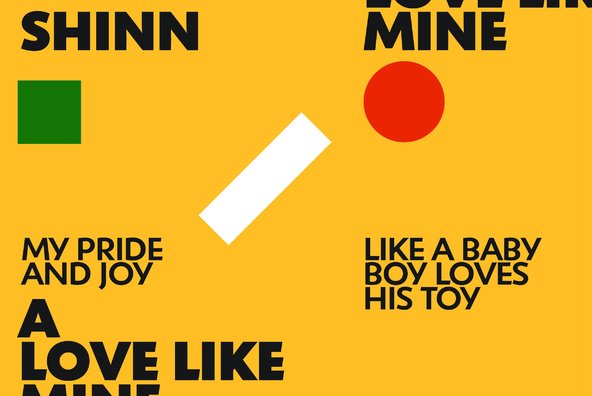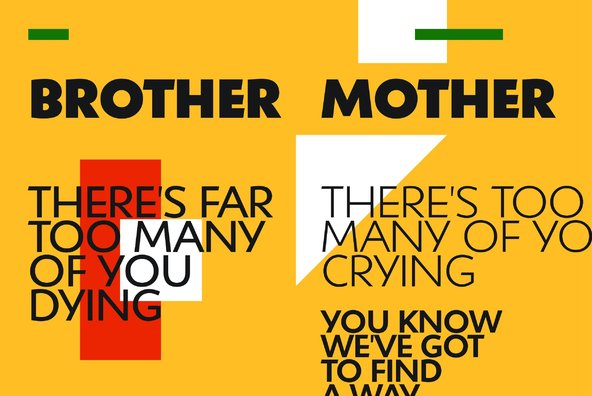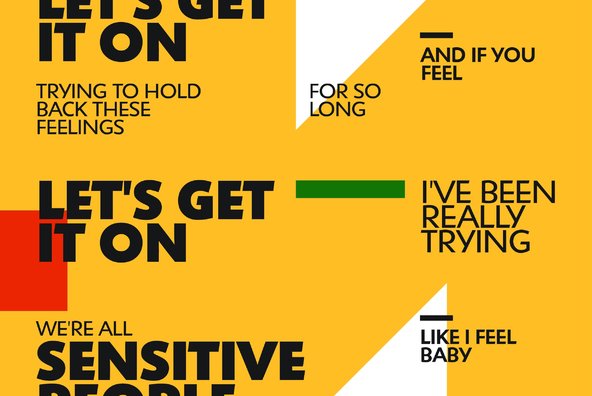
Designed by Nick Shinn. Digitally engineered by Steve Jackaman. Humanist sans serif with a calligraphic cut and tall ascenders. Light, Medium and Extra Bold designed by Nick in 1985 for Typsettra; Steve added the Book and Bold weights, and the Italics.